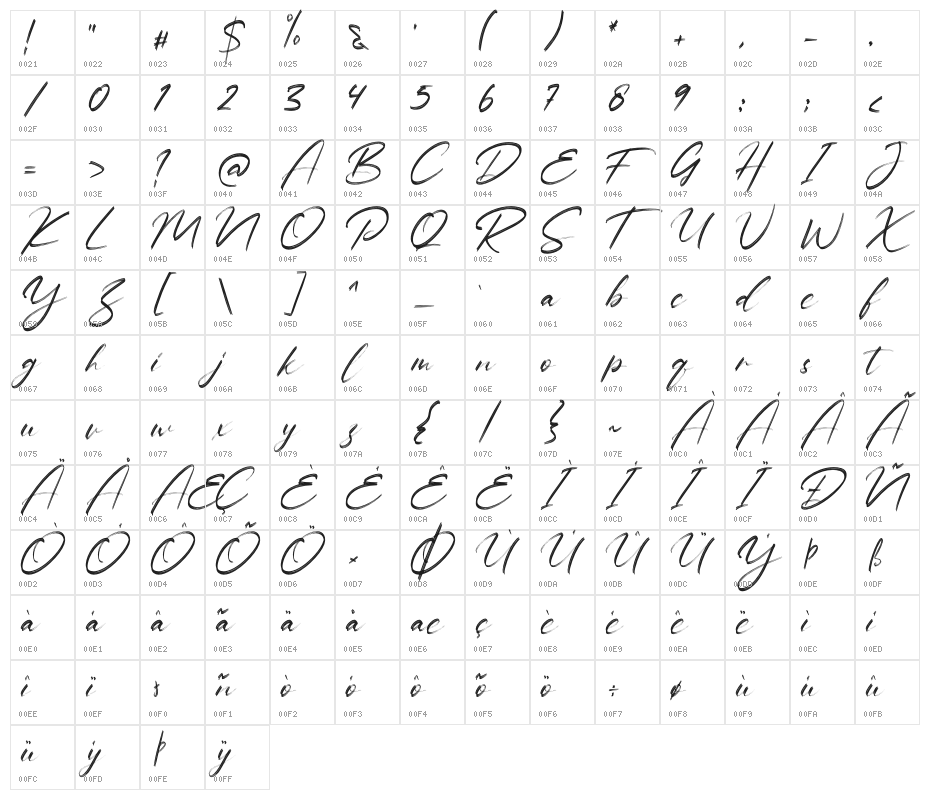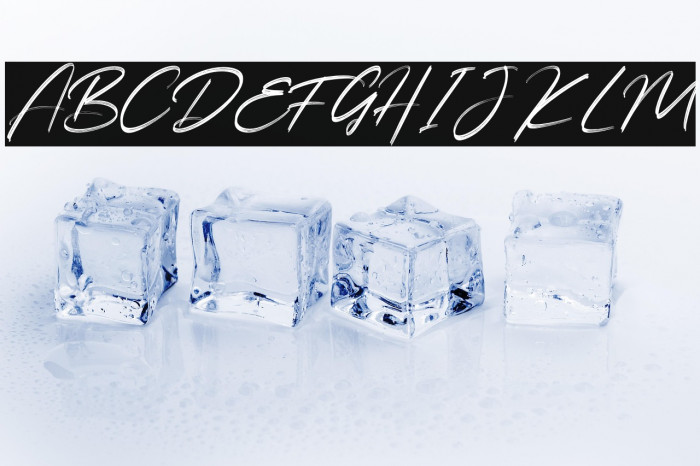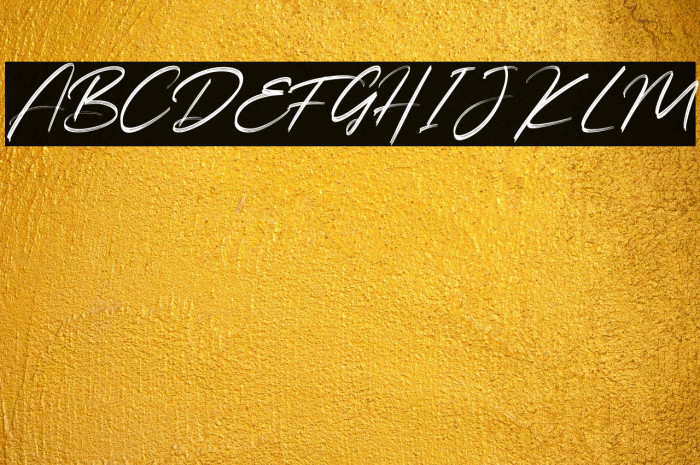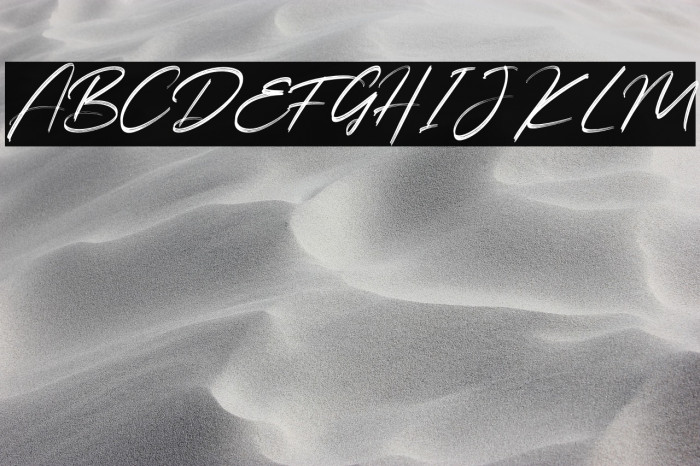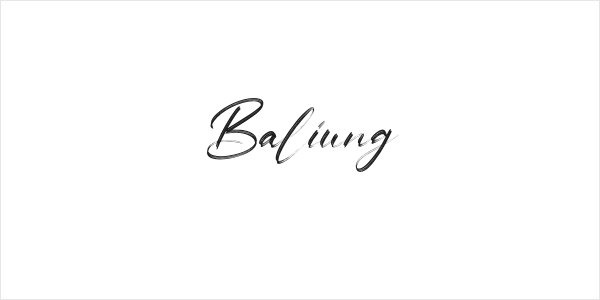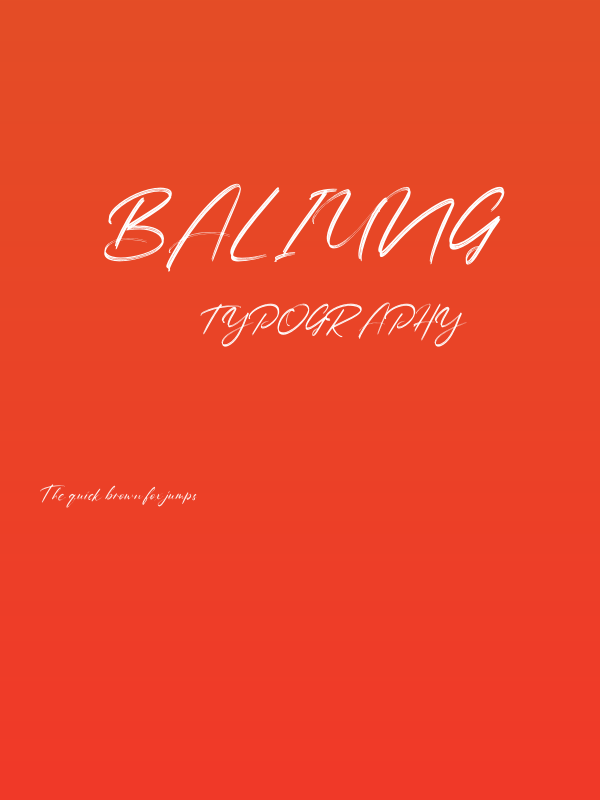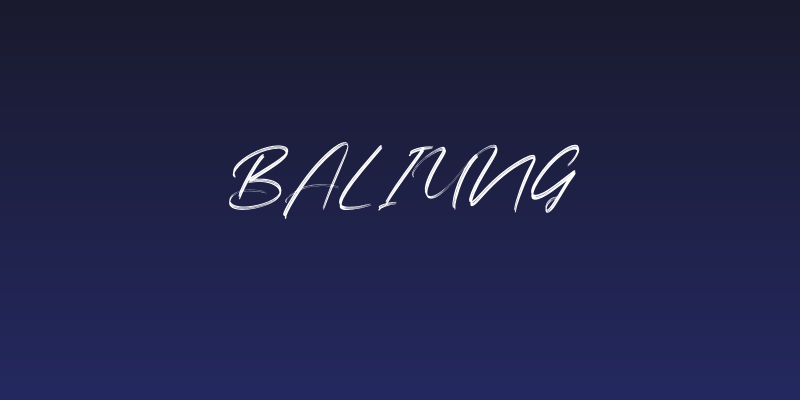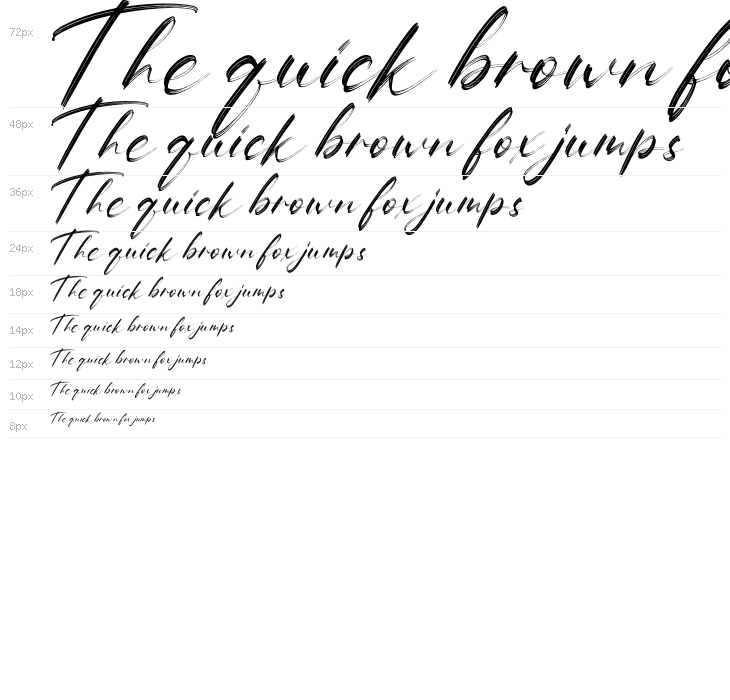
Baliung Font
Baliung Description
This font exudes a dynamic and energetic feel with its fluid, handwritten style. The strokes are bold and expressive, giving each character a sense of movement and spontaneity. The uppercase letters are tall and slightly slanted, while the lowercase letters maintain a consistent flow, enhancing the script-like appearance. Numbers and special characters follow the same lively design, making them stand out. The overall impression is one of creativity and freedom, suitable for projects that require a personal touch or artistic flair.